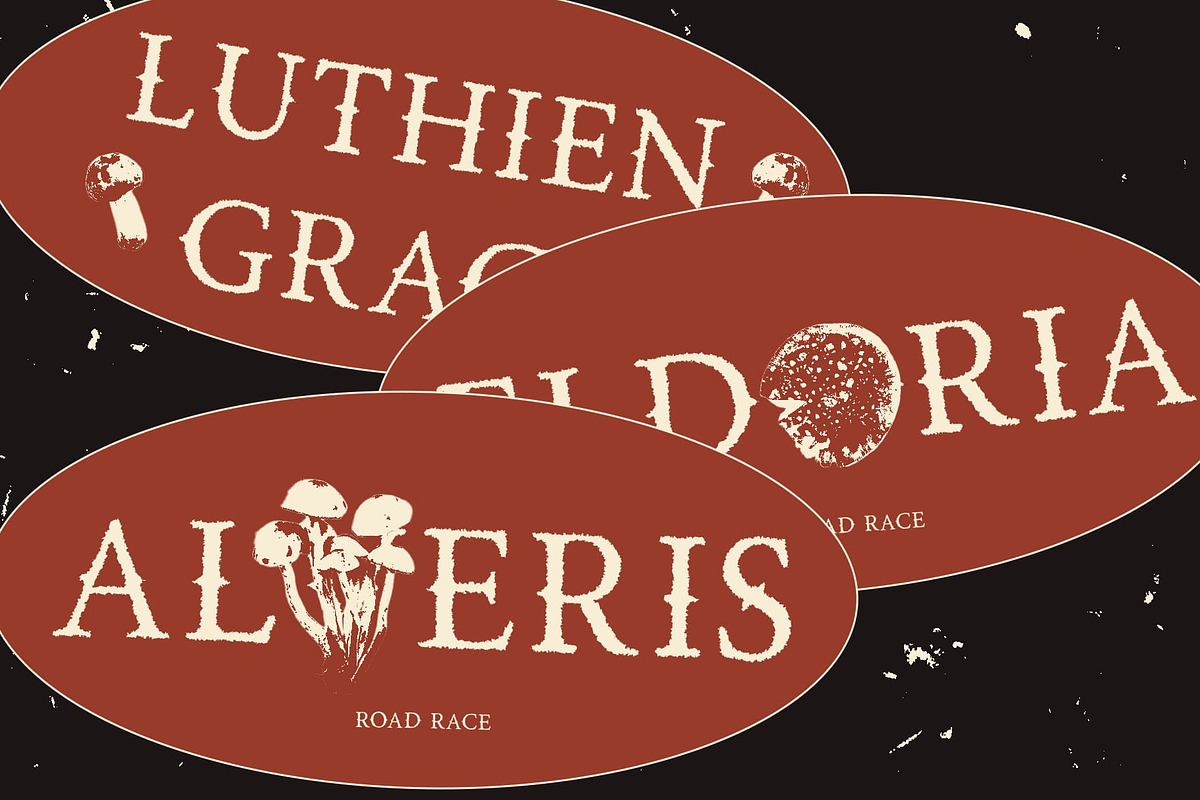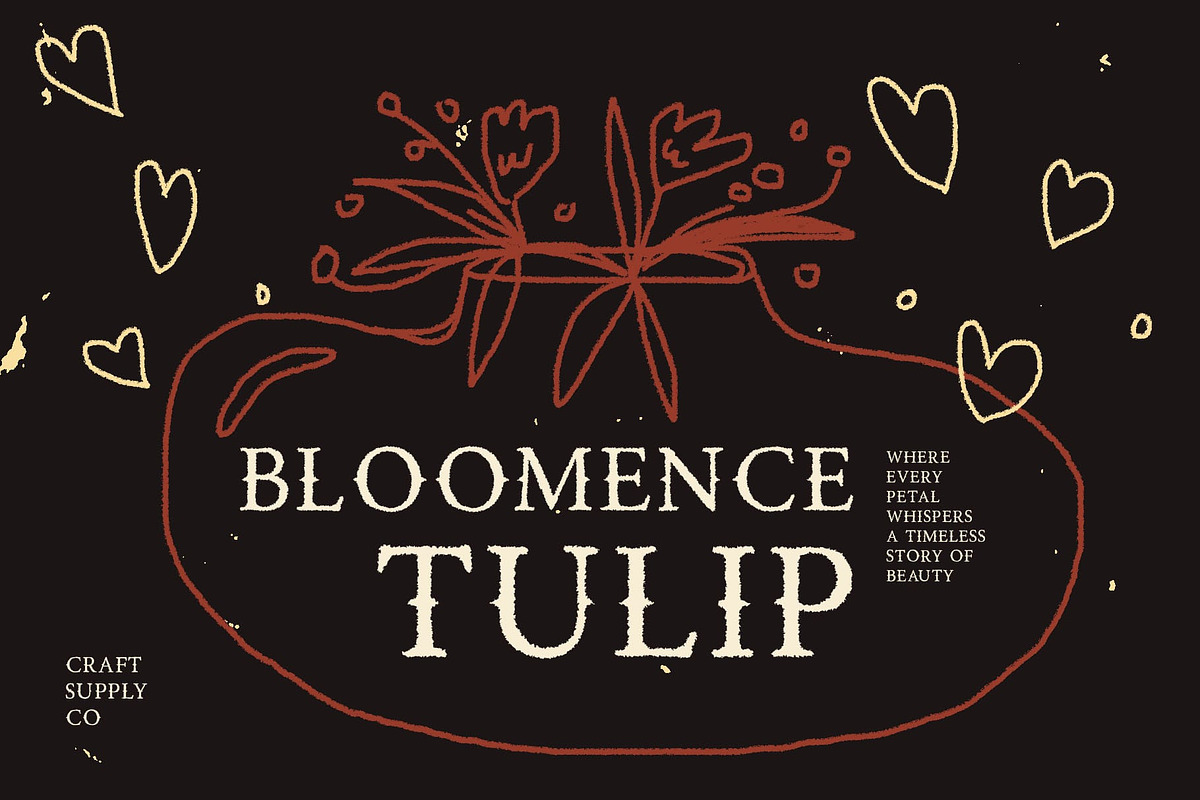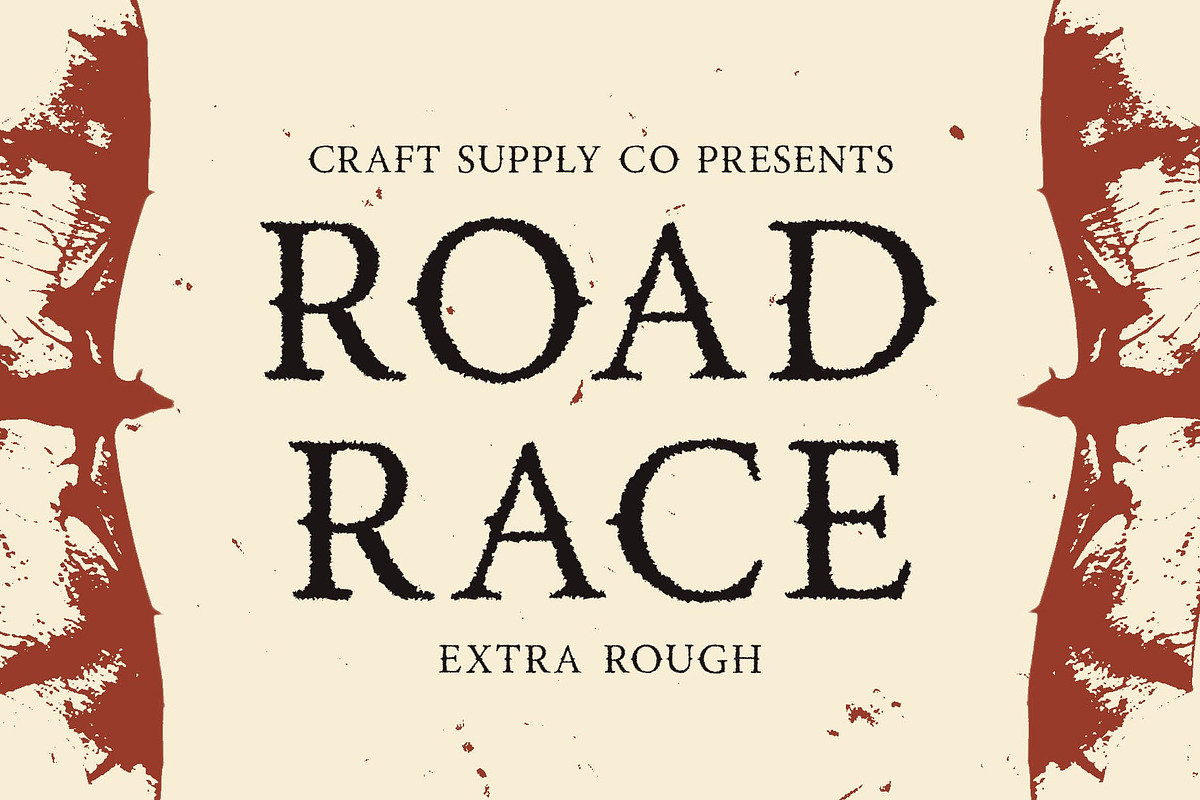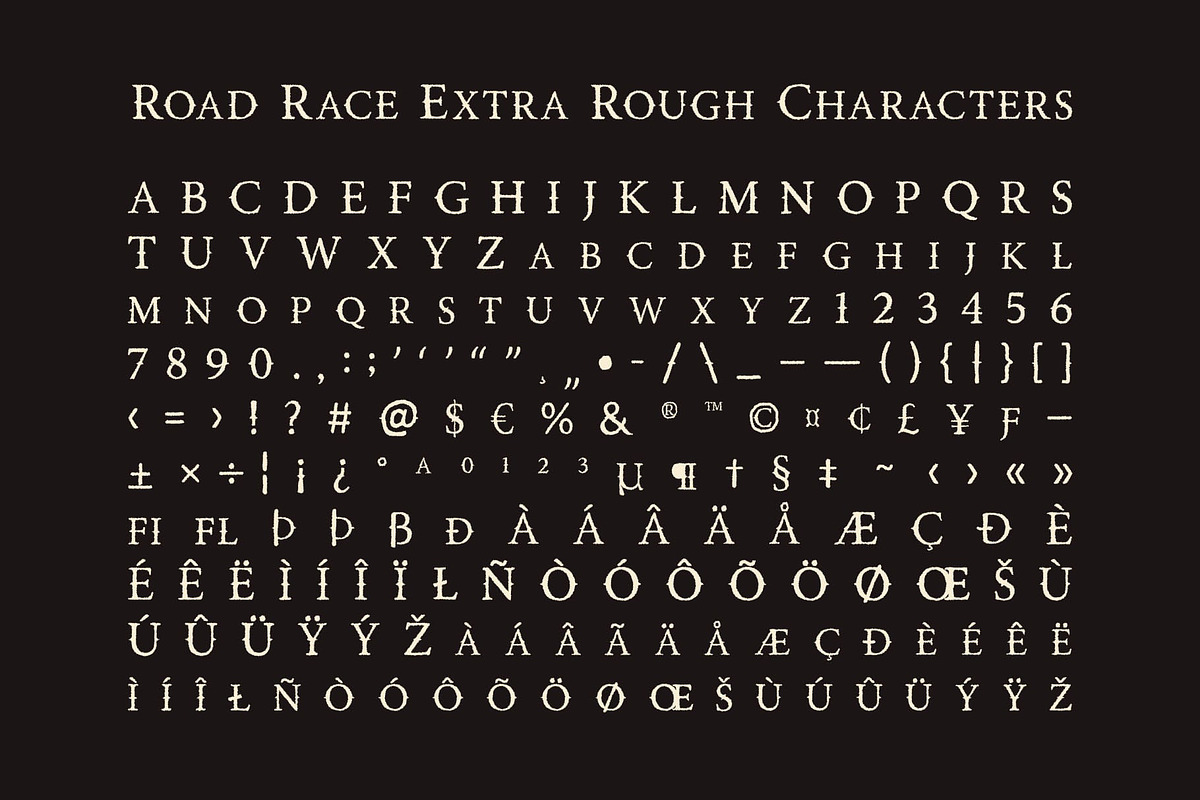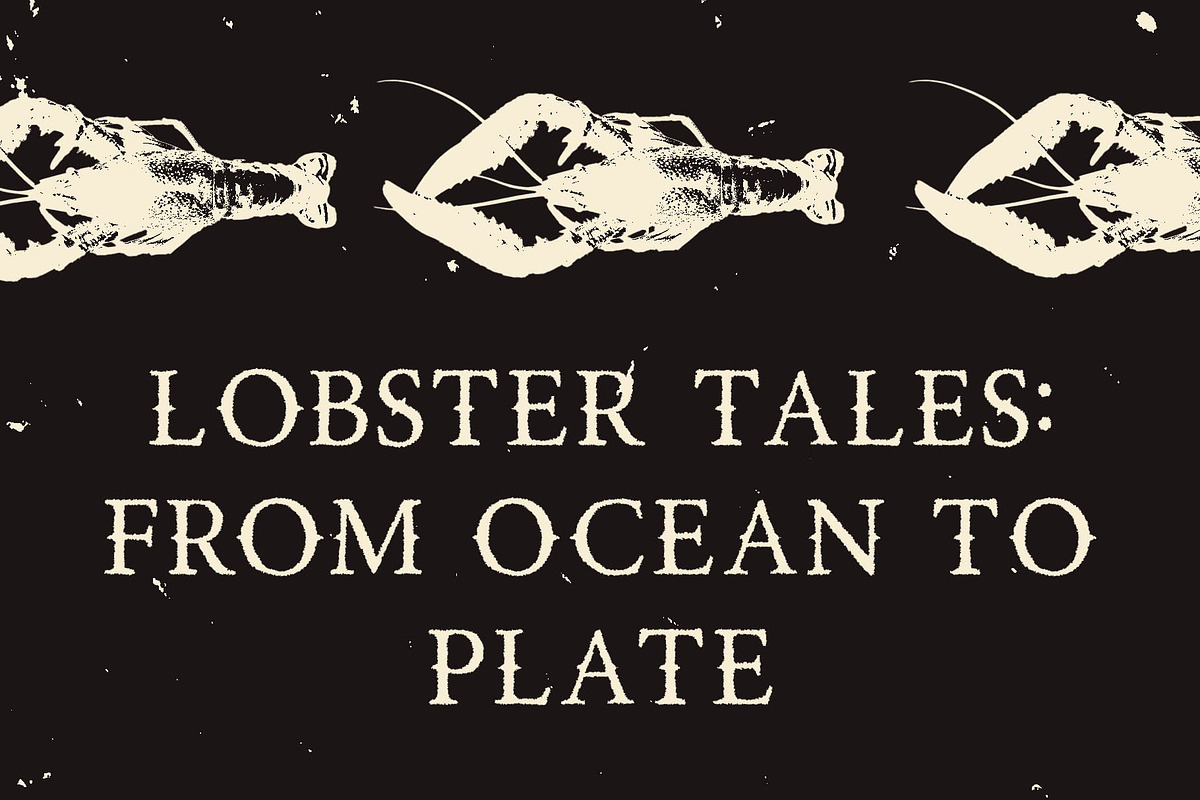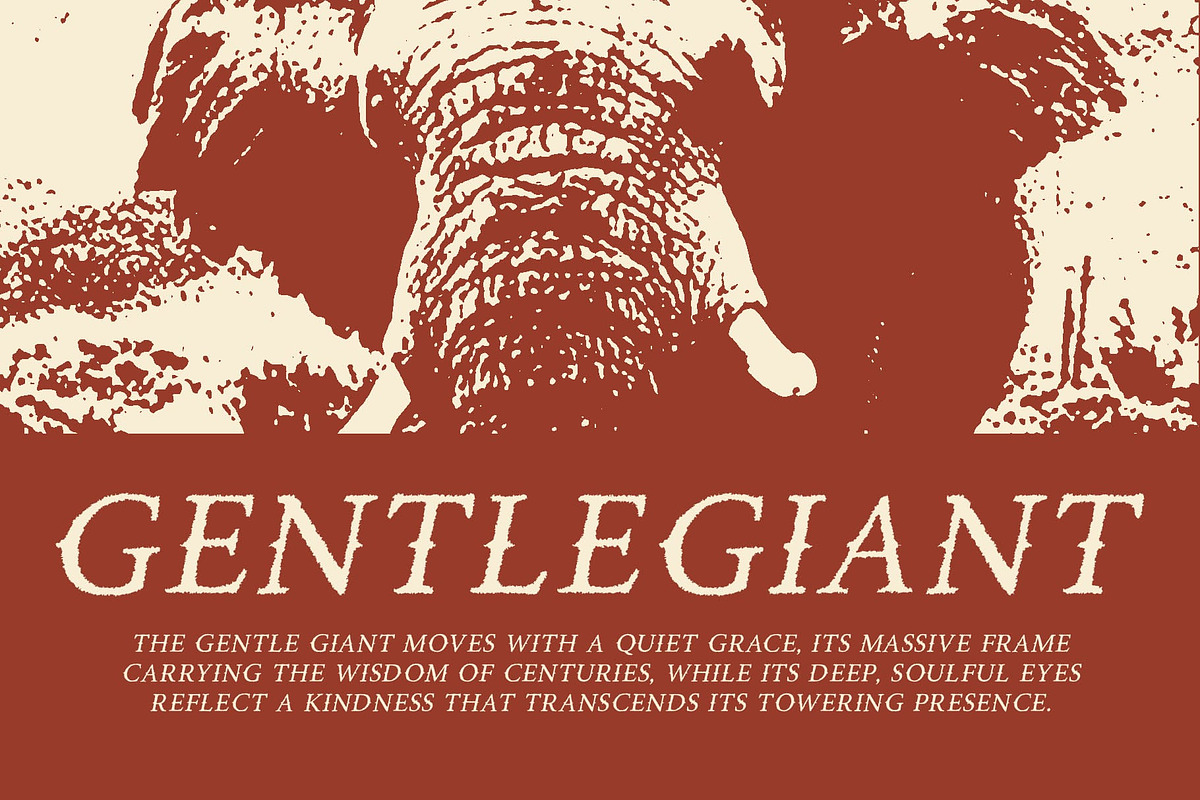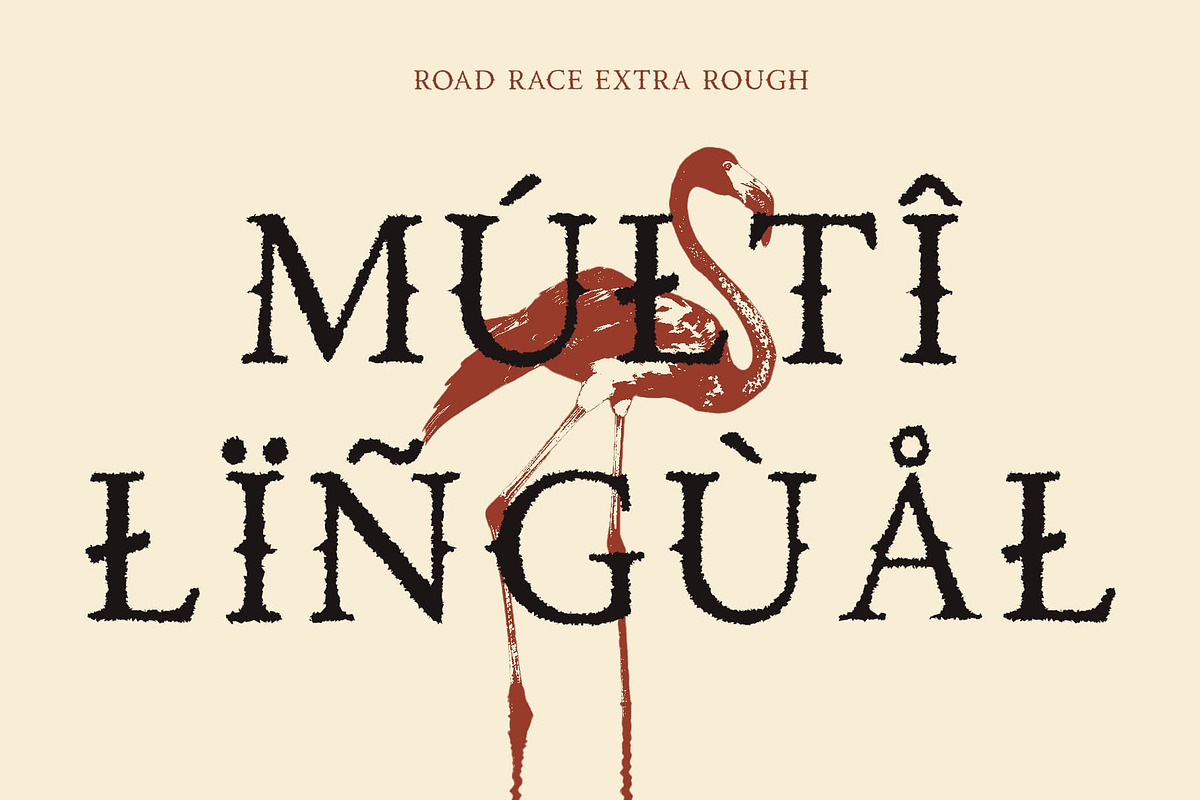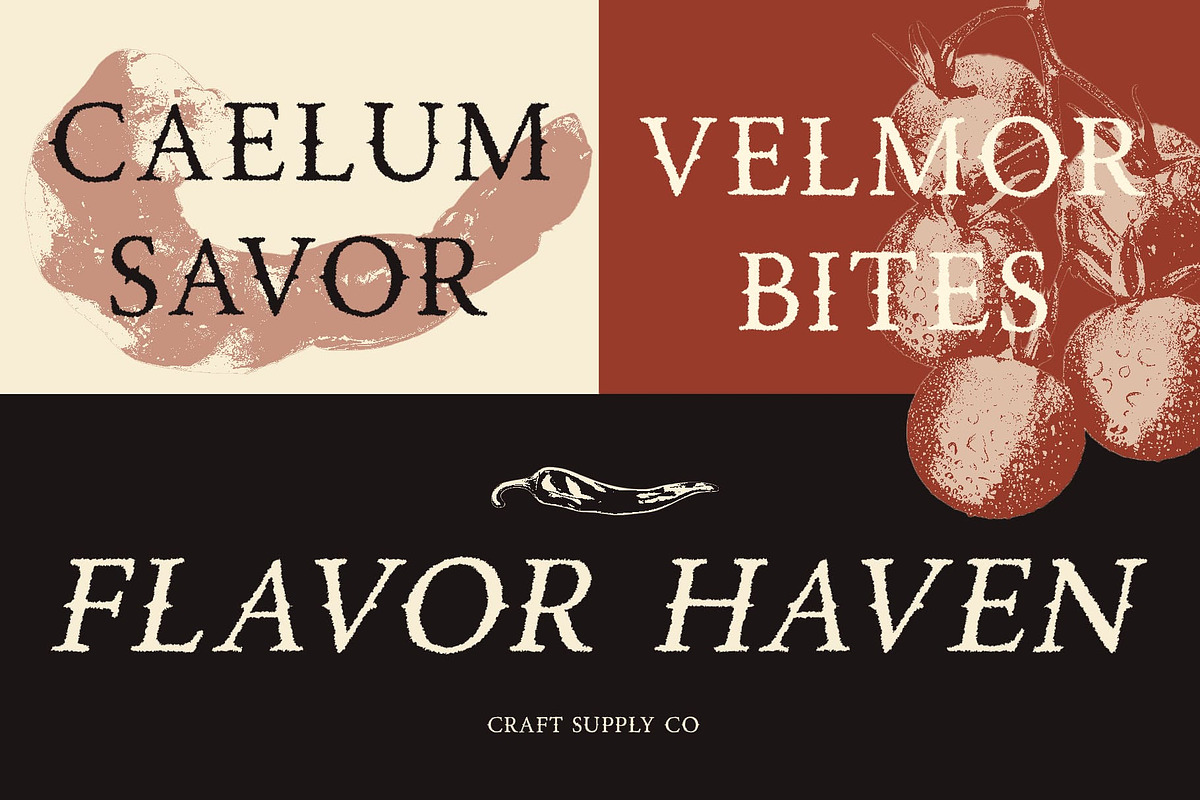
Road Race Extra Rough
Road Race Extra Rough – Bold Elegance with a Rugged Edge
Modern Display Serif with a Strong Character This is a modern display serif font that masterfully combines elegance with boldness. Its contemporary letterforms exude sophistication, while the strong, structured design ensures a commanding presence. Perfect for designers seeking a font that merges refinement with an assertive edge, it is ideal for high-impact visual storytelling.
Refined with a Distinctive Rough Effect What sets this modern font apart is its striking rough texture, which adds a layer of depth and authenticity. The subtle distressed details give it a handcrafted, weathered appeal, making it an excellent choice for projects that require a balance of luxury and raw, expressive energy. Whether applied to branding, posters, or product labels, this textured finish enhances its visual impact.
Perfect for Branding, Editorials, and Packaging Designed for bold statements, this rough font is a top choice for branding, editorial layouts, and premium packaging. Its elegant yet rugged personality makes it well-suited for high-end fashion, automotive brands, lifestyle publications, and luxury product packaging.
A Fusion of Strength and Style Balancing sharp elegance with rugged details, this font is designed to stand out. Its unique character makes it the perfect choice for designers seeking a typeface that commands attention while maintaining a refined, high-end feel.
- Road Race Extra Rough Regular
- Road Race Extra Rough Italic